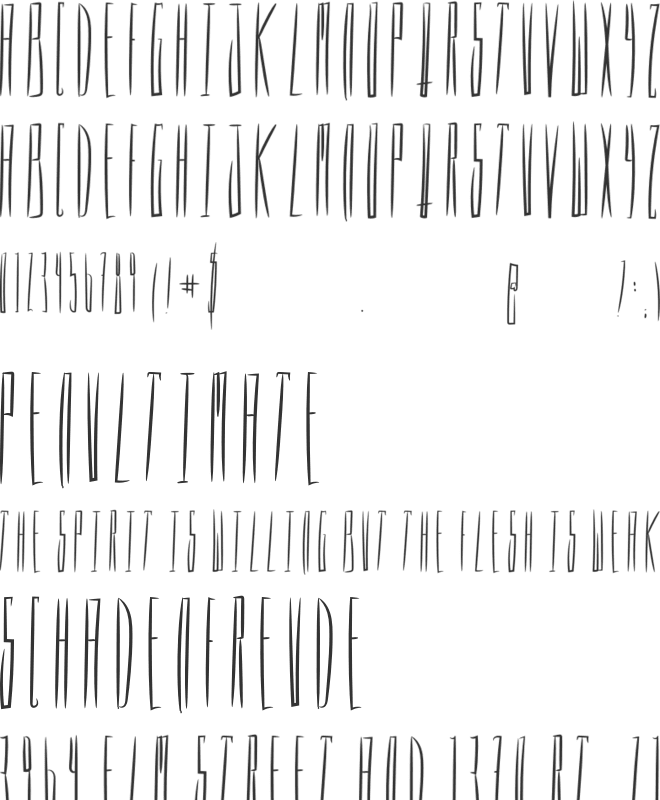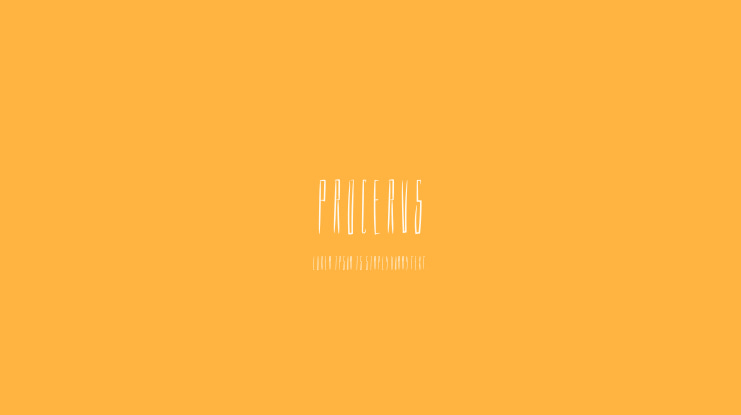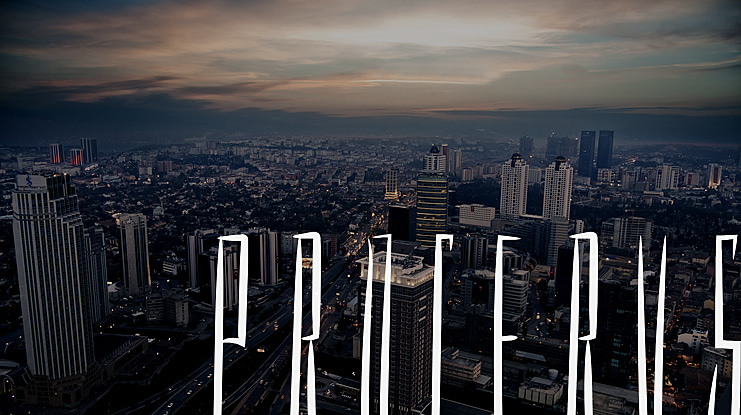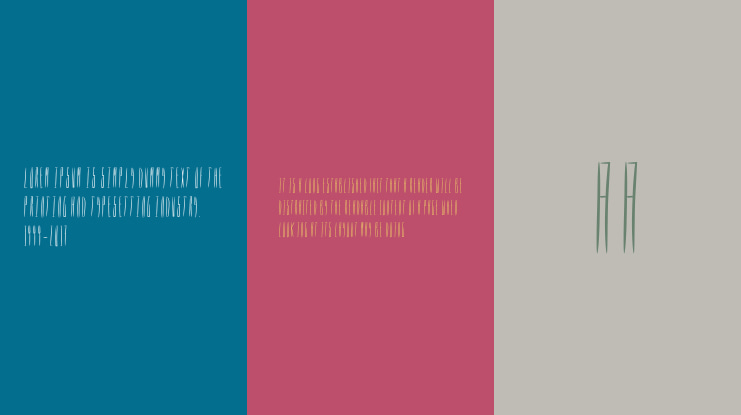
PROCERUS Font
Procerus Font was created by Dwayne Adams. This font is hand-drawn and features uppercase characters only, roman numerals, and special characters. This font has a long x-height, high crossbar and comes in regular only. For more fonts visit www.DwayneAdams.com